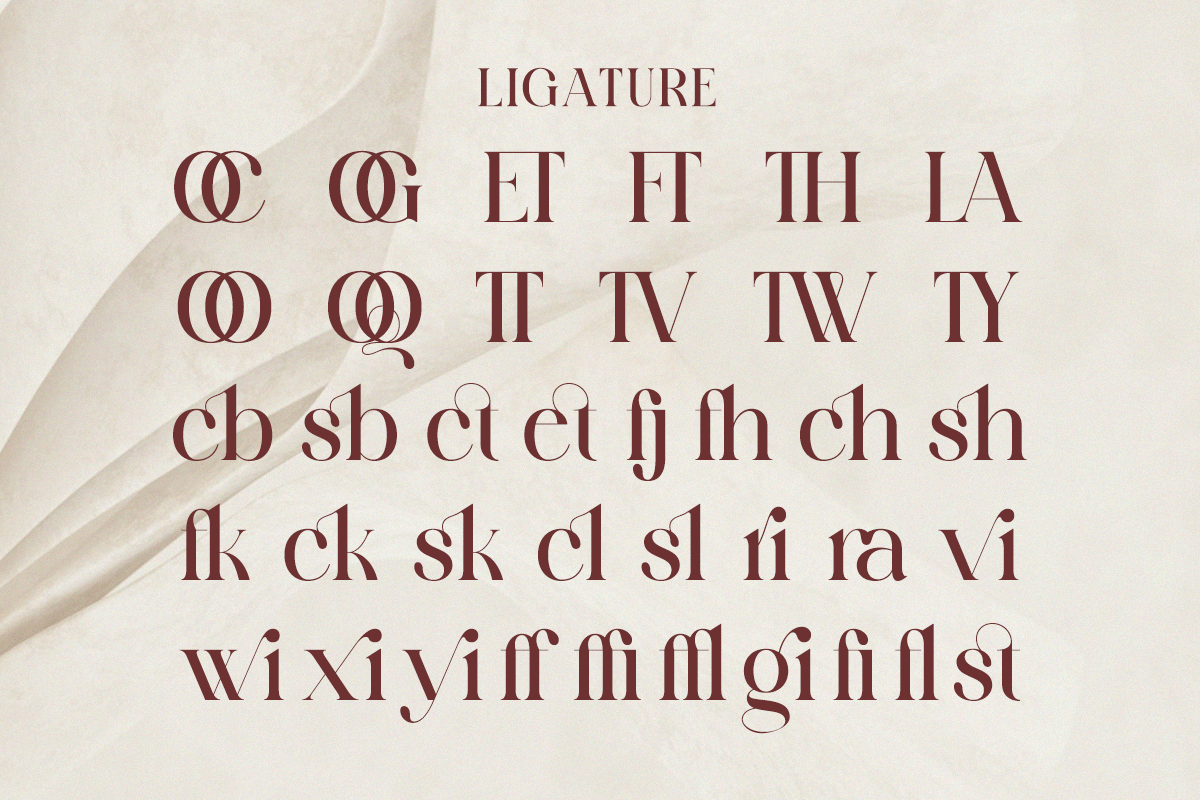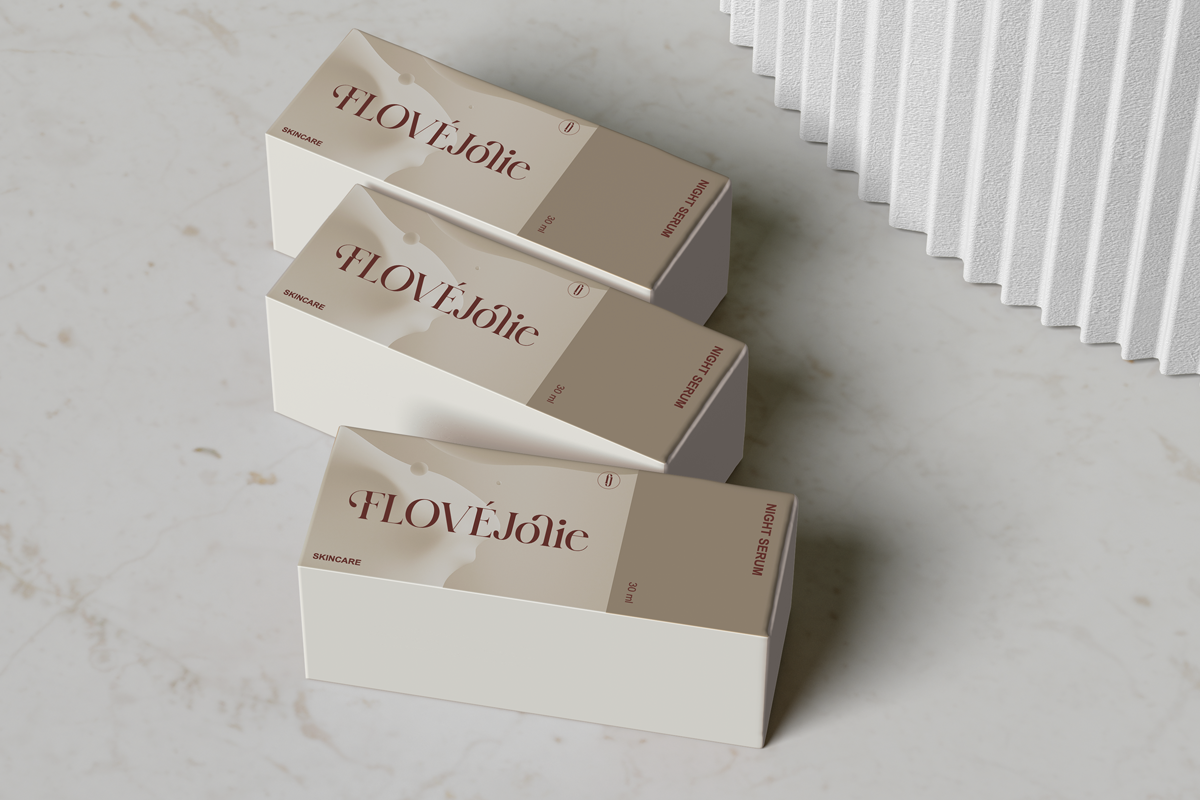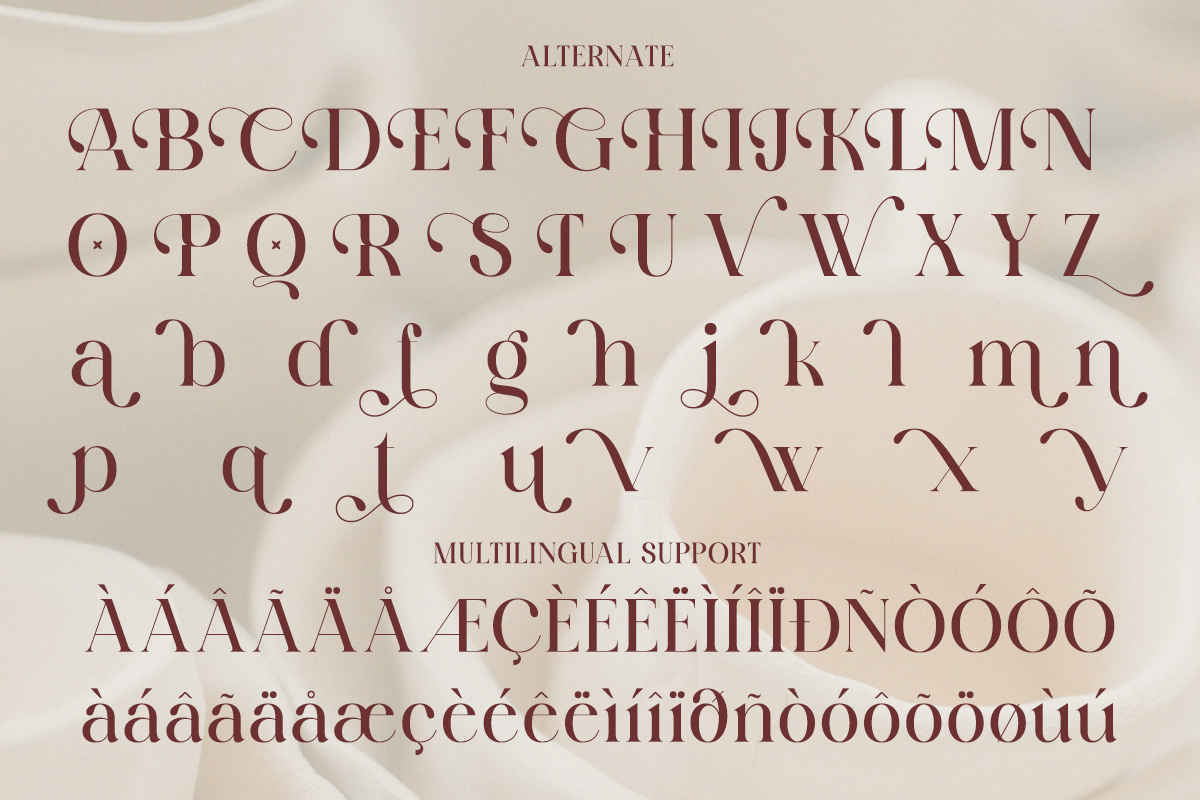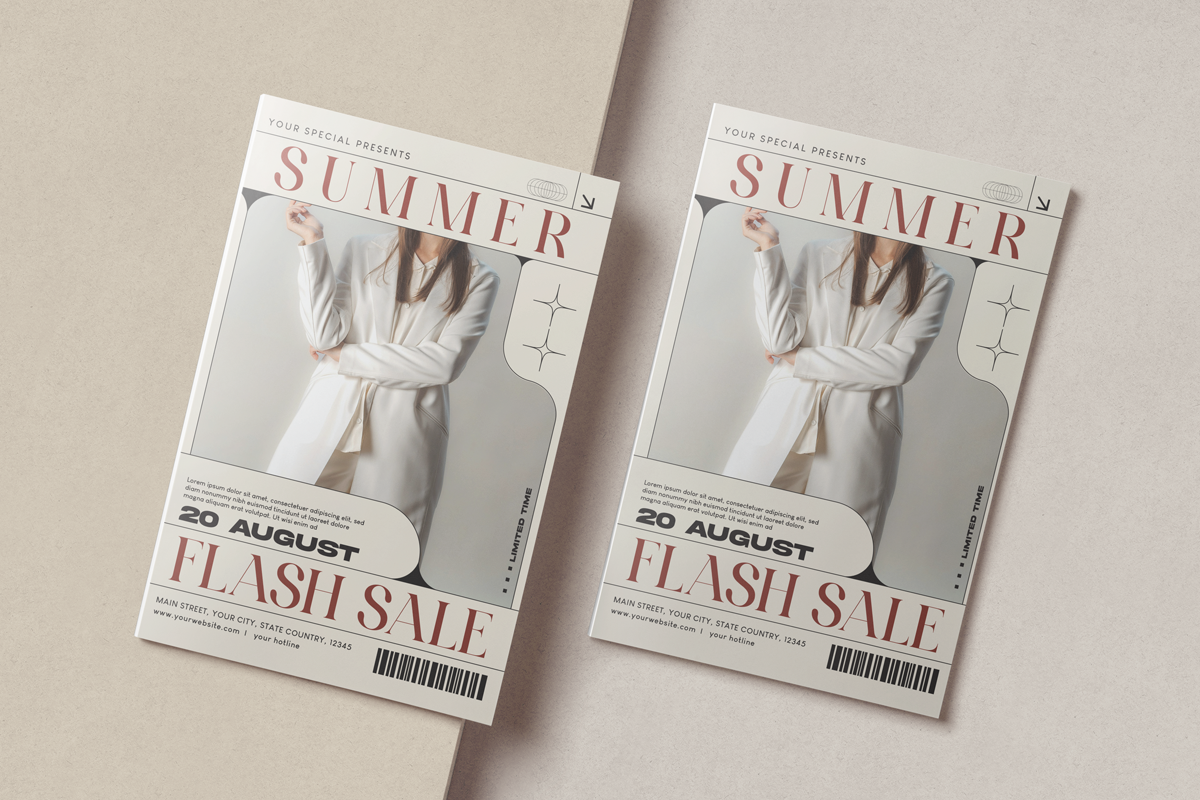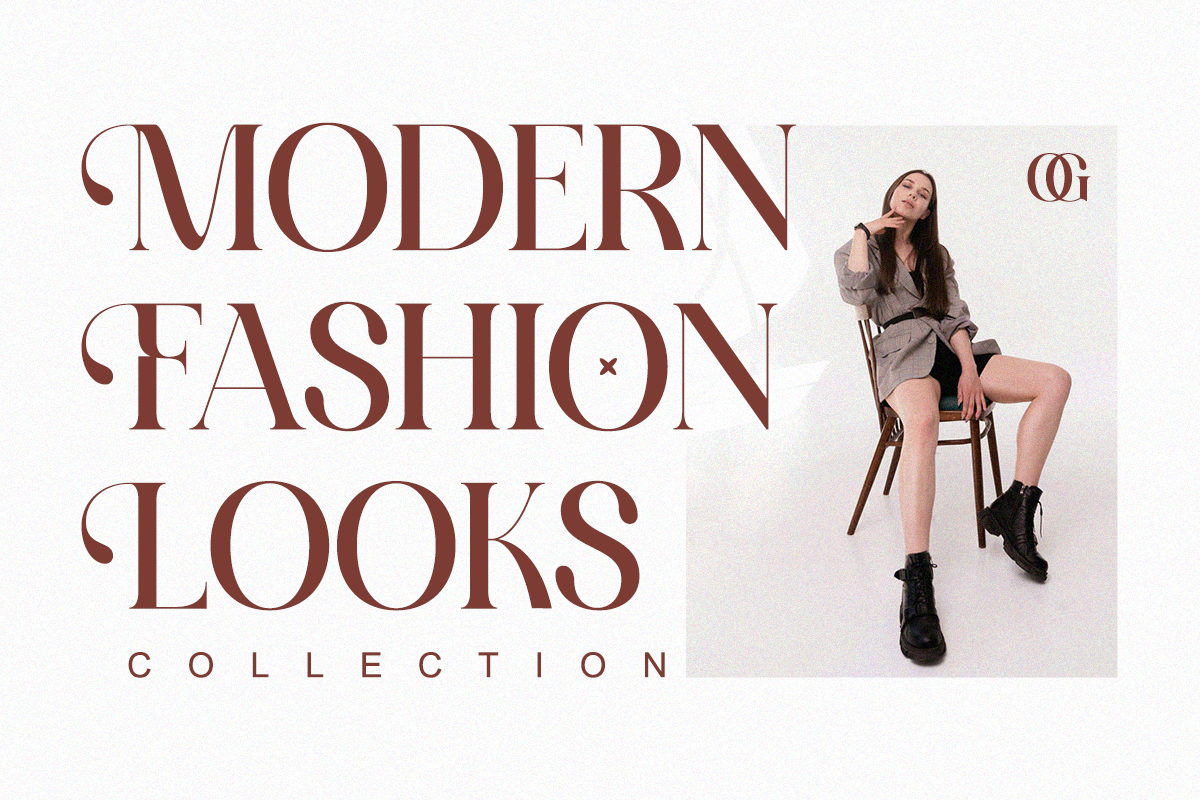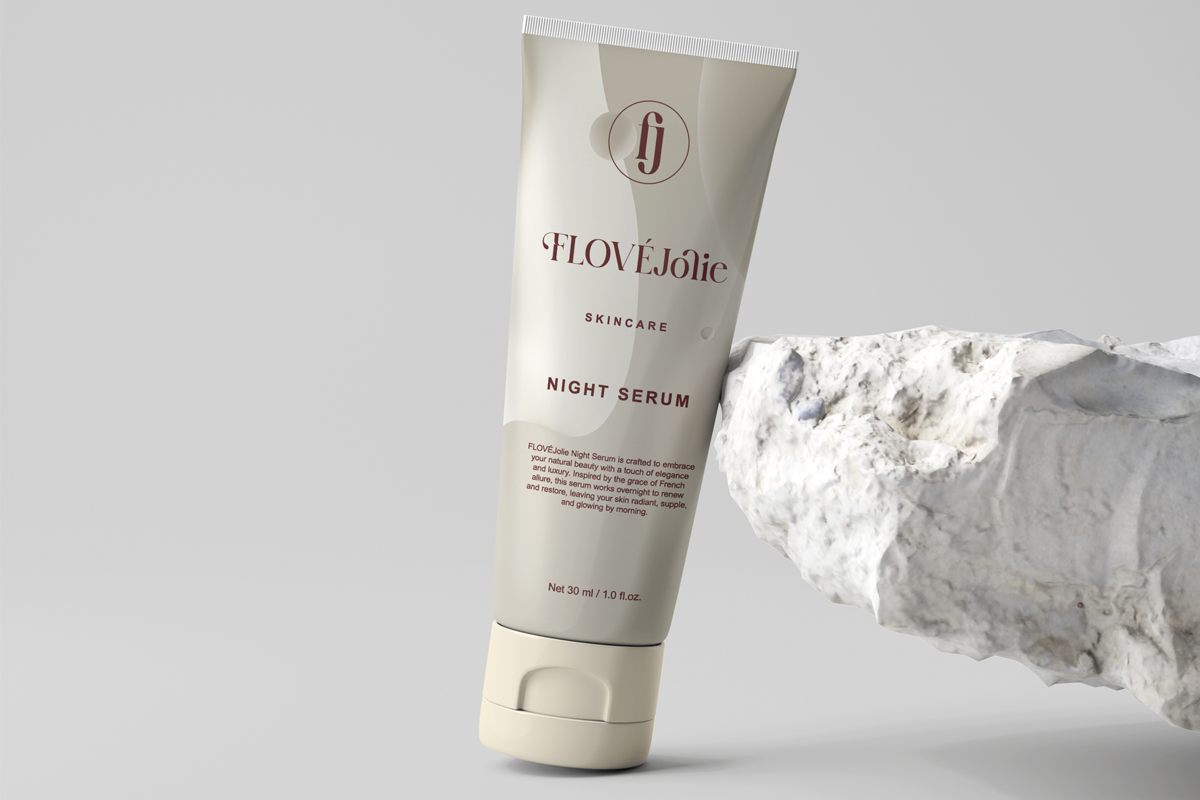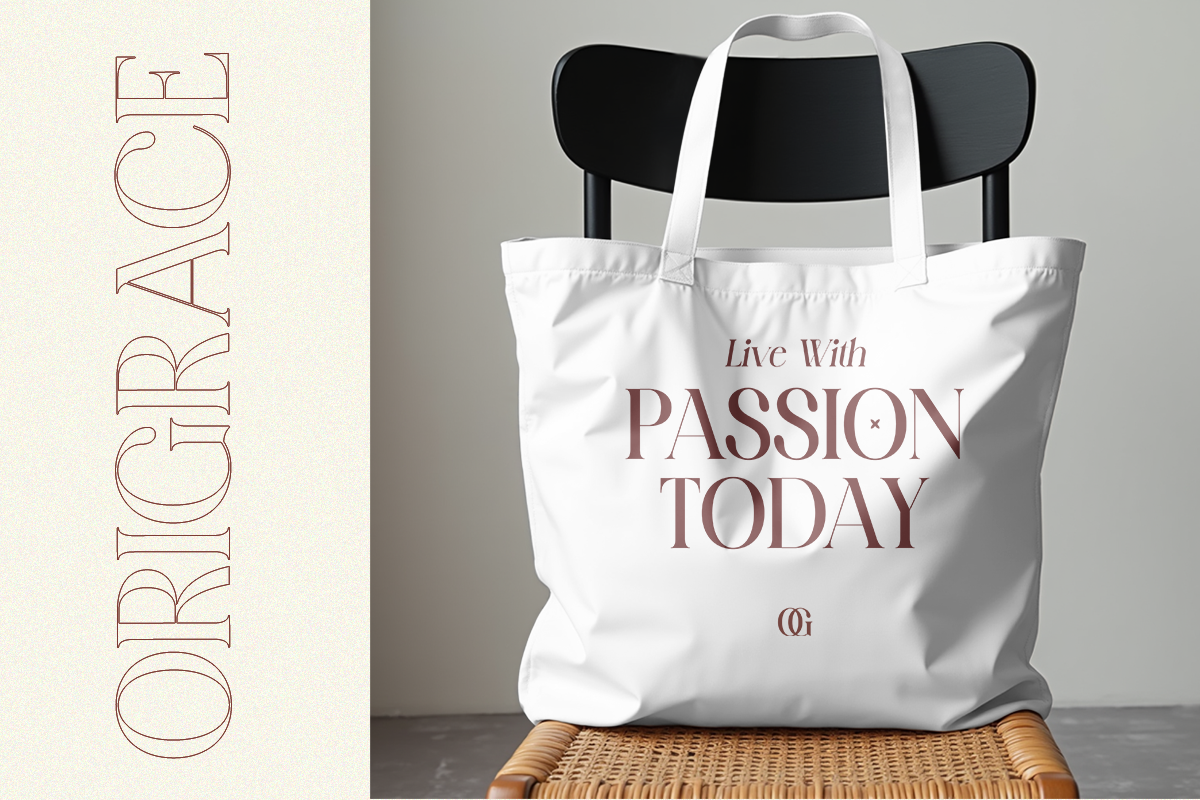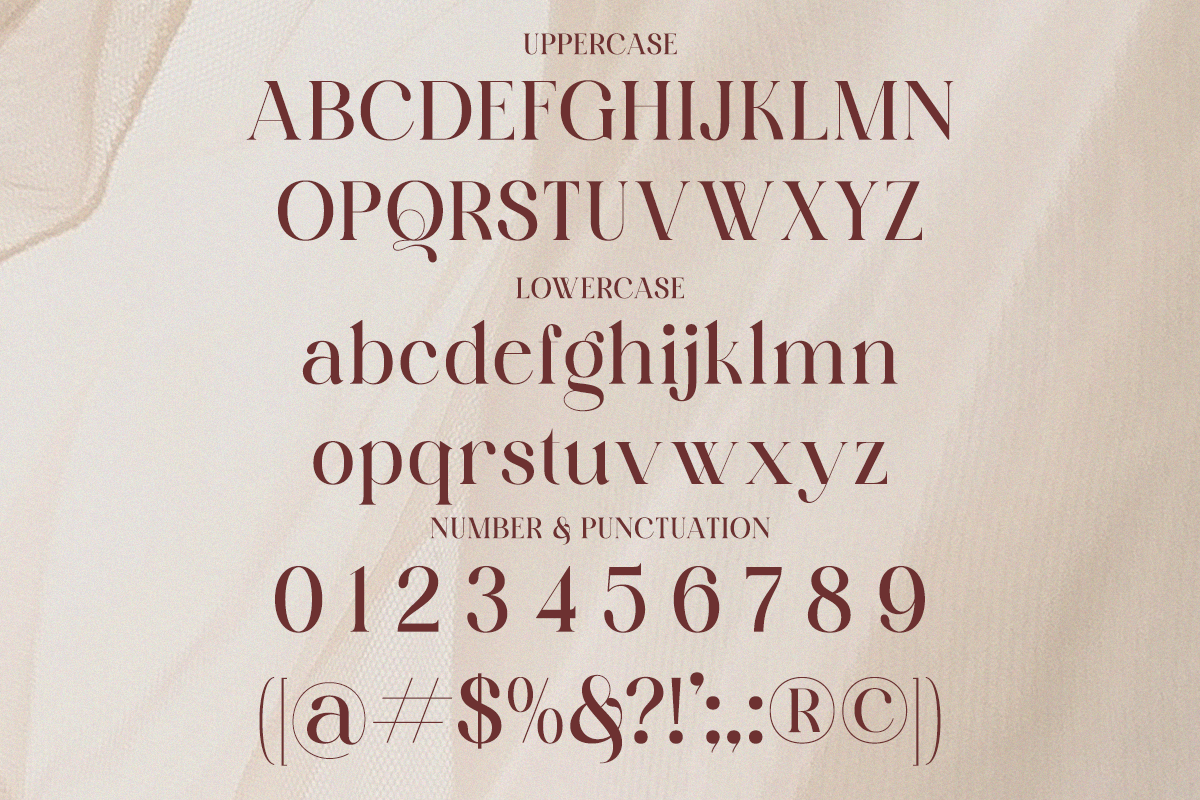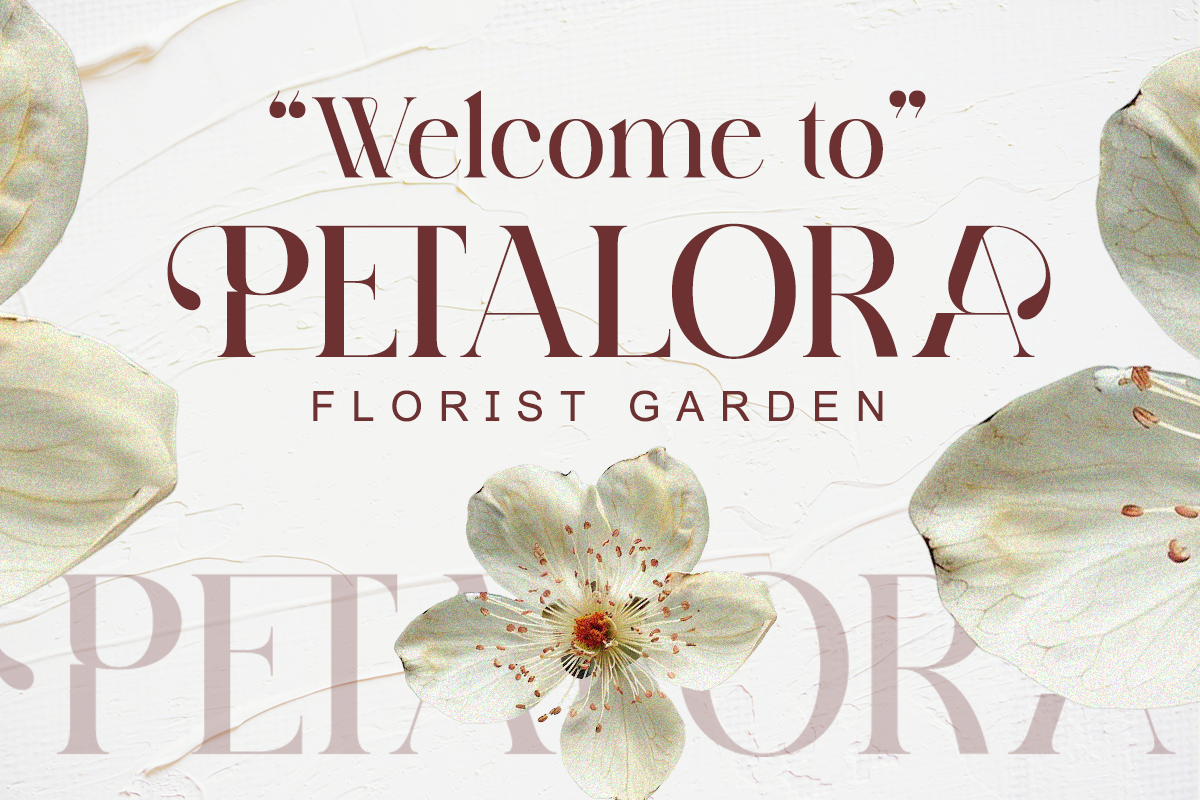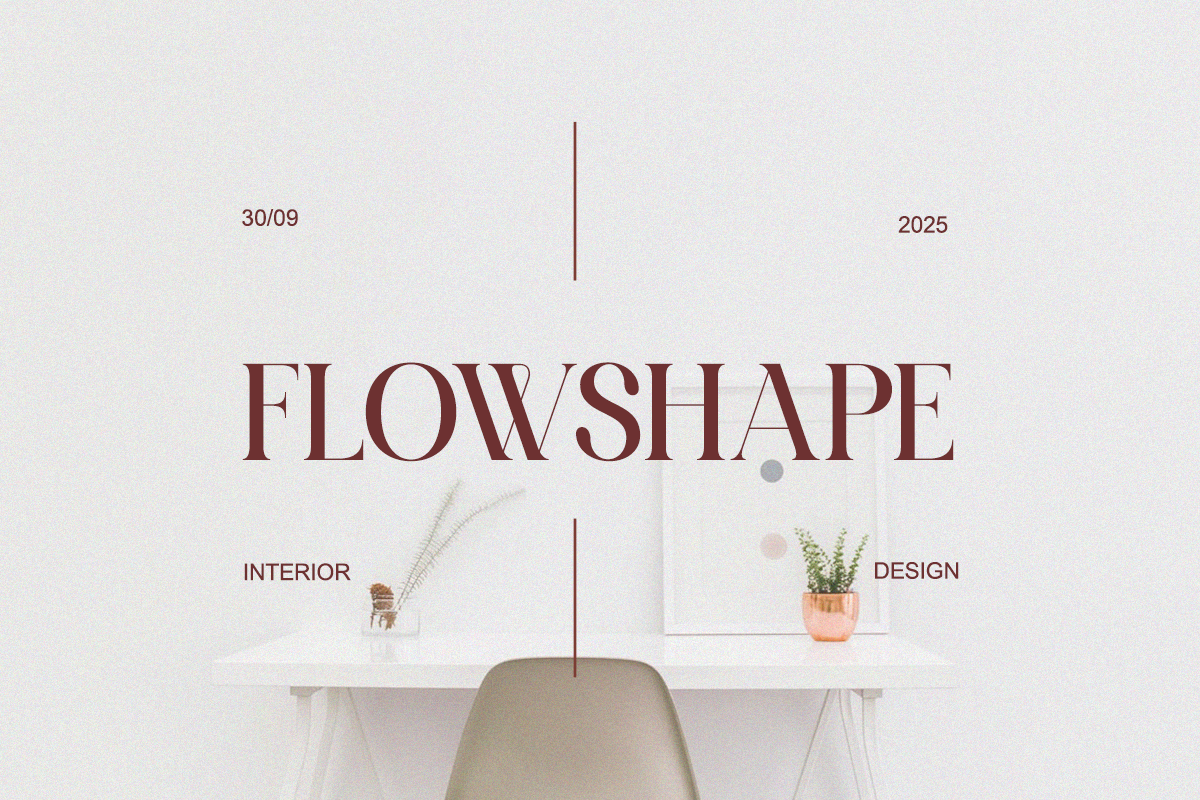
Lemedril - Elegant Modern Stylish
Lemedril is a modern serif font that exudes elegance and refinement. Its graceful strokes, smooth ligatures, and high contrast shapes make it perfect for luxury branding, packaging, weddings, and editorial designs. With an air of poetic sophistication, Lemedril defines modern beauty and timeless femininity in one typeface.